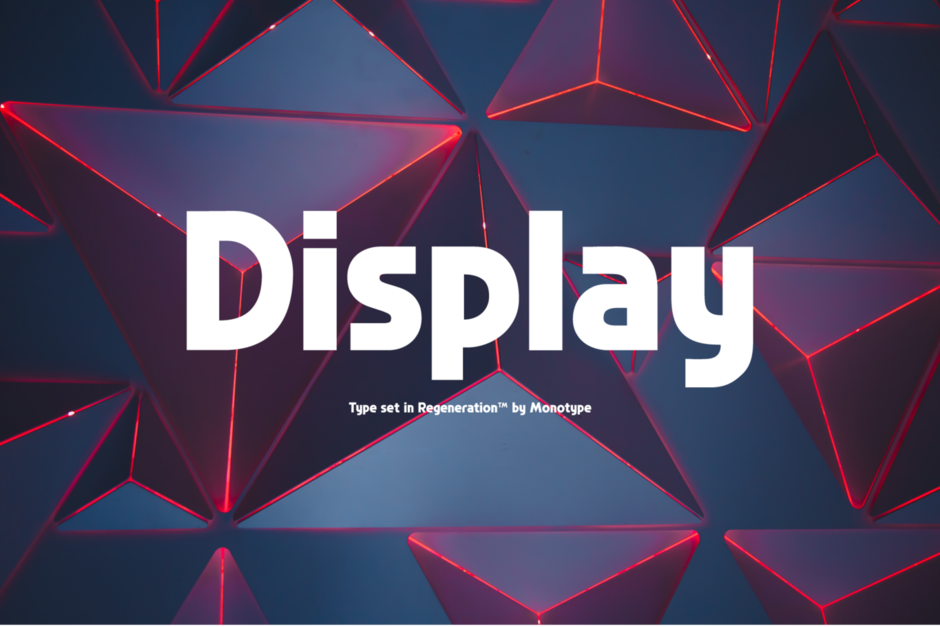
You are a Display Font
Type set in Regeneration™
You are a Display font. You’re comfortable outside of your comfort zone. You aren’t afraid to question tradition, and you are happiest at the intersection of style and substance.